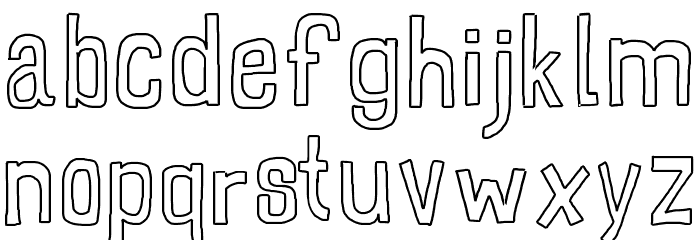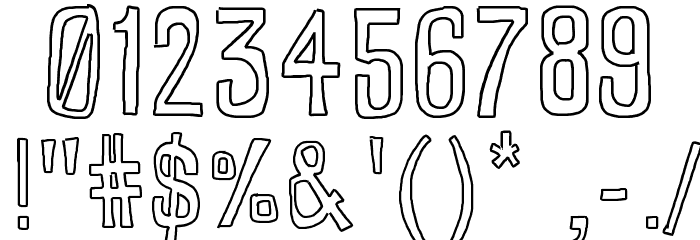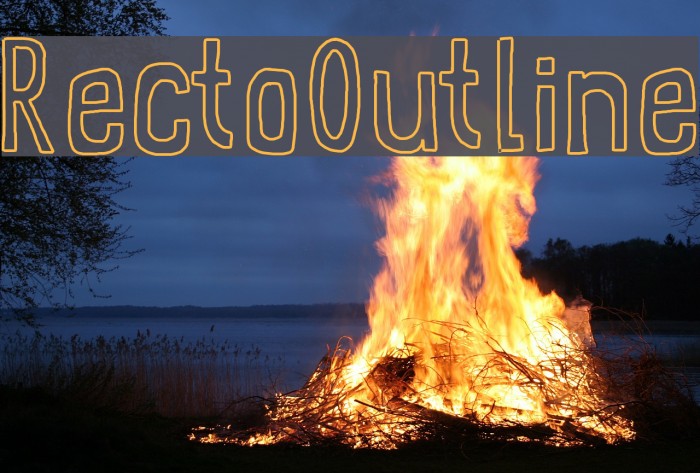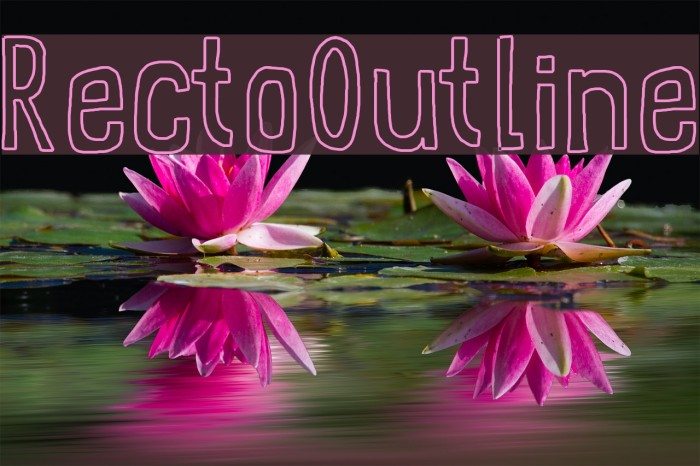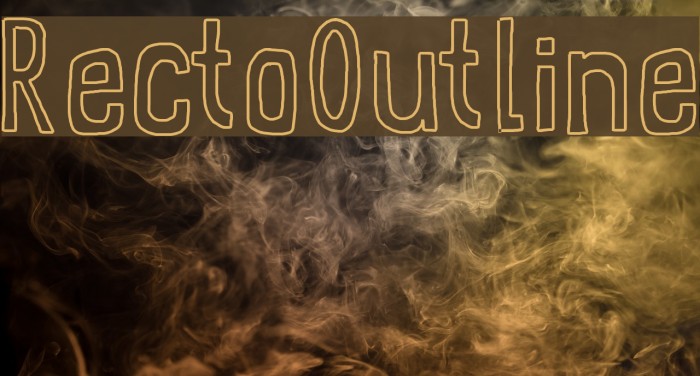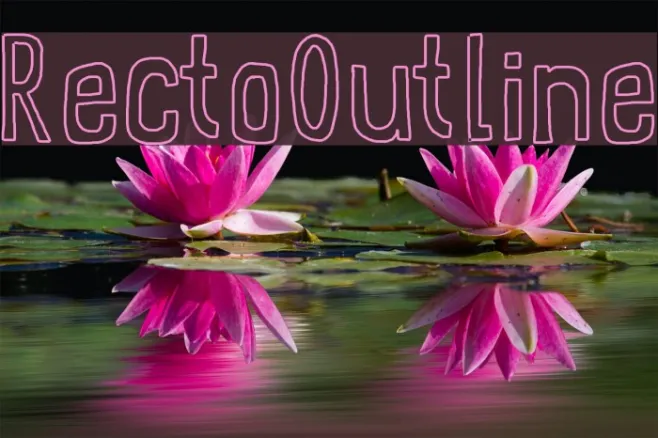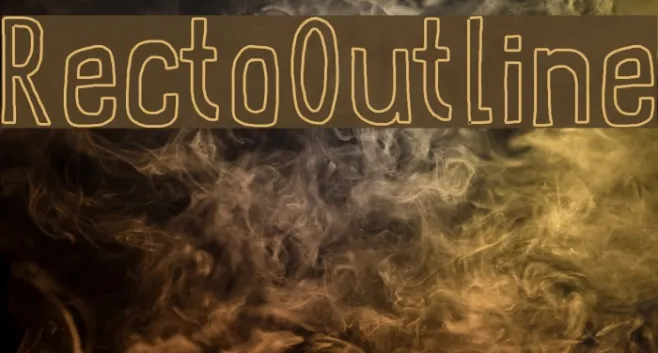
RectoOutline Font
This font features a distinct outline style that gives it a modern and playful appearance. The characters are bold and have a uniform thickness, creating a consistent and cohesive look. The uppercase and lowercase letters maintain a geometric structure, while the numerals and special characters are designed to match the overall aesthetic. The font's outline nature makes it stand out, providing a unique visual appeal that is both eye-catching and versatile. Its clean lines and open spaces make it suitable for a variety of design applications, offering a fresh and contemporary feel.
A modern outline font with bold, geometric characters and a playful style.
- Proposed Projects: Ideal for posters, logos, headlines, and any design requiring a standout, modern typeface.